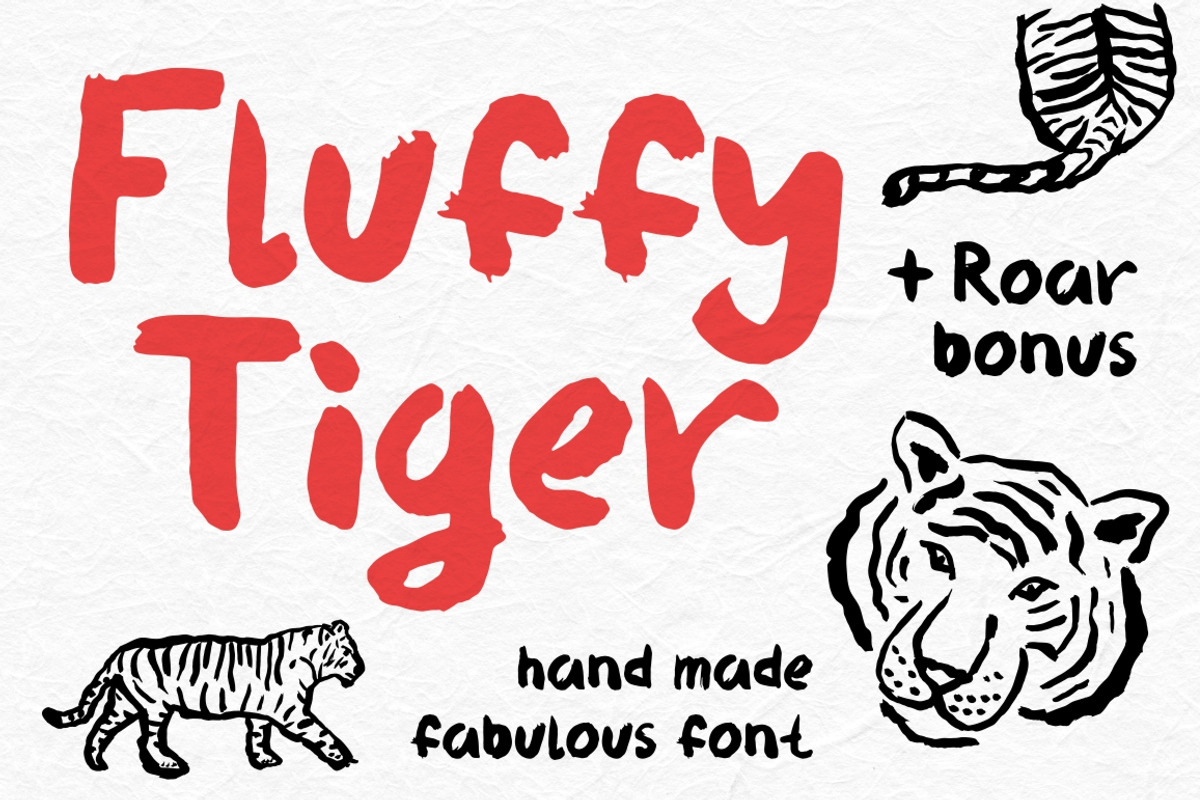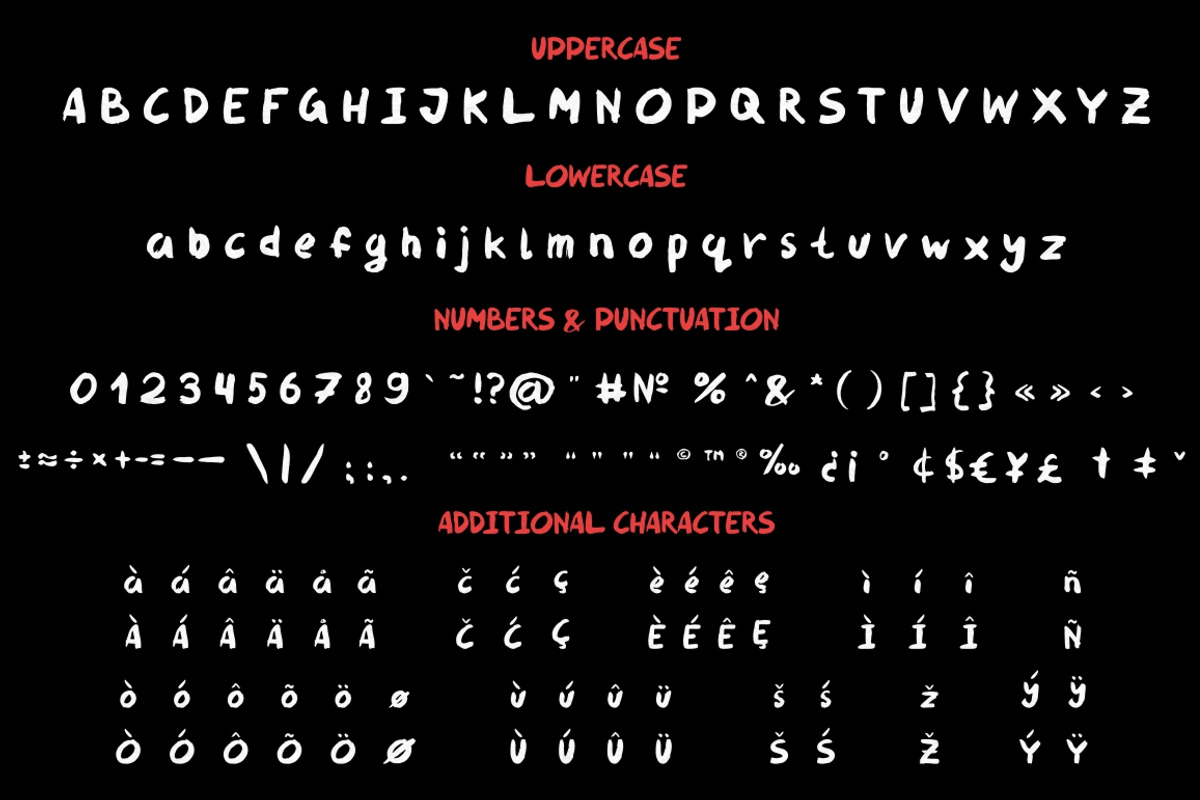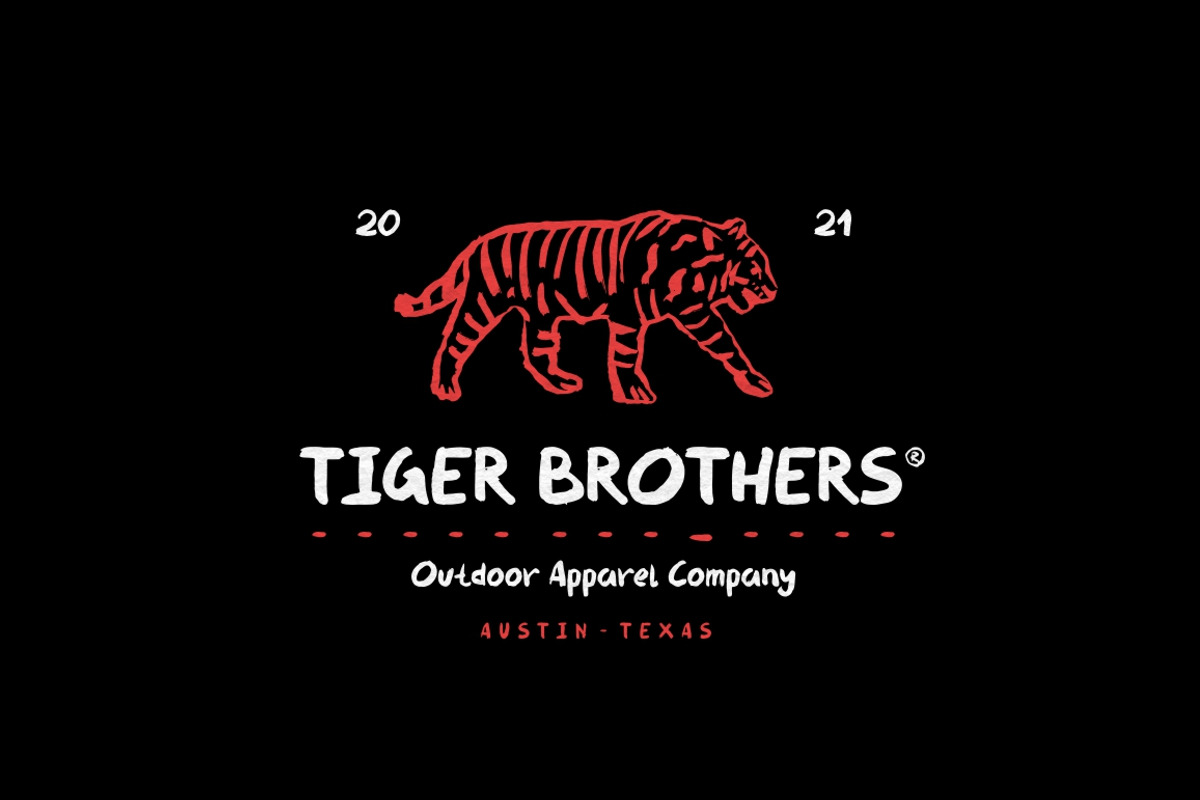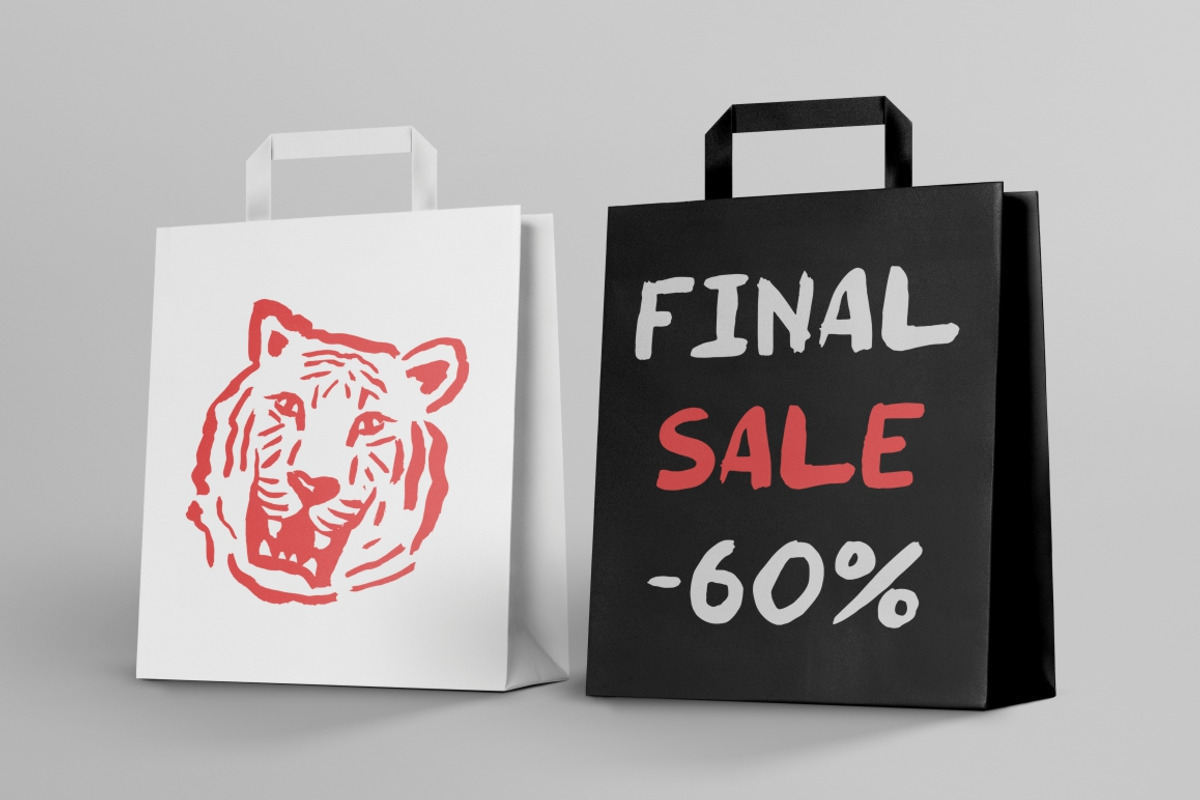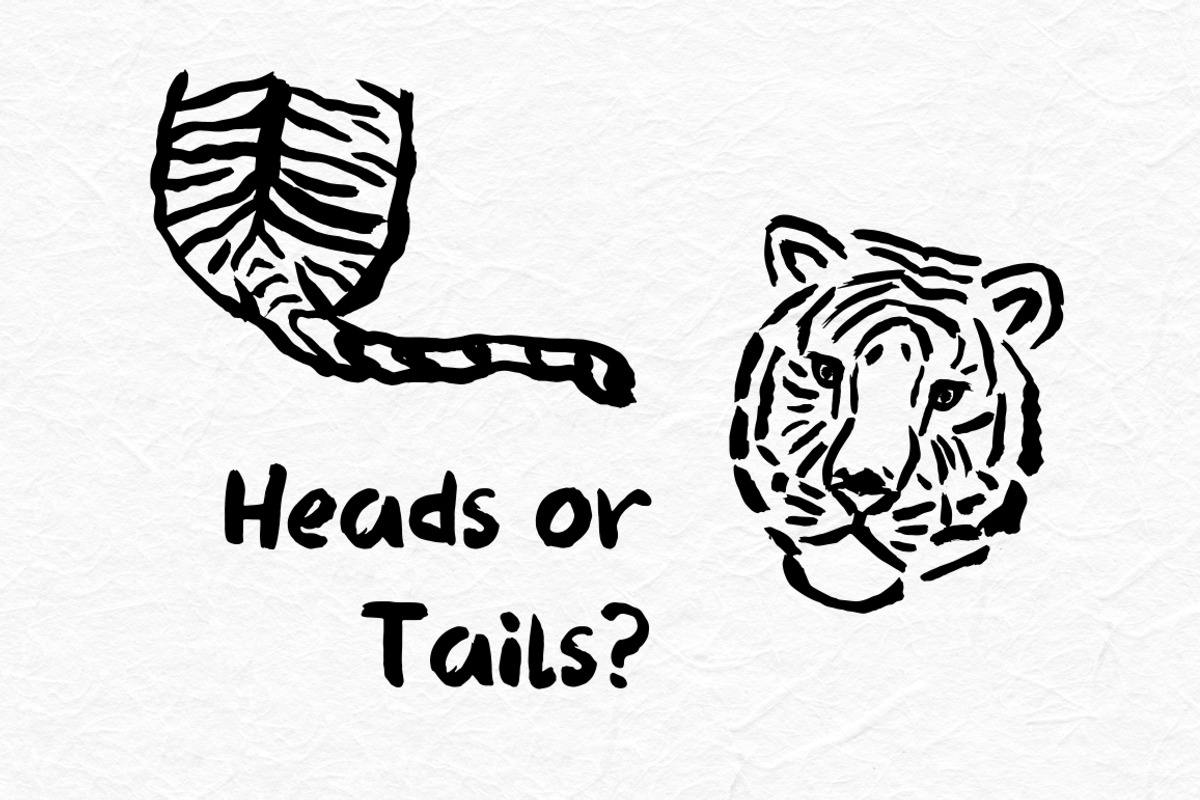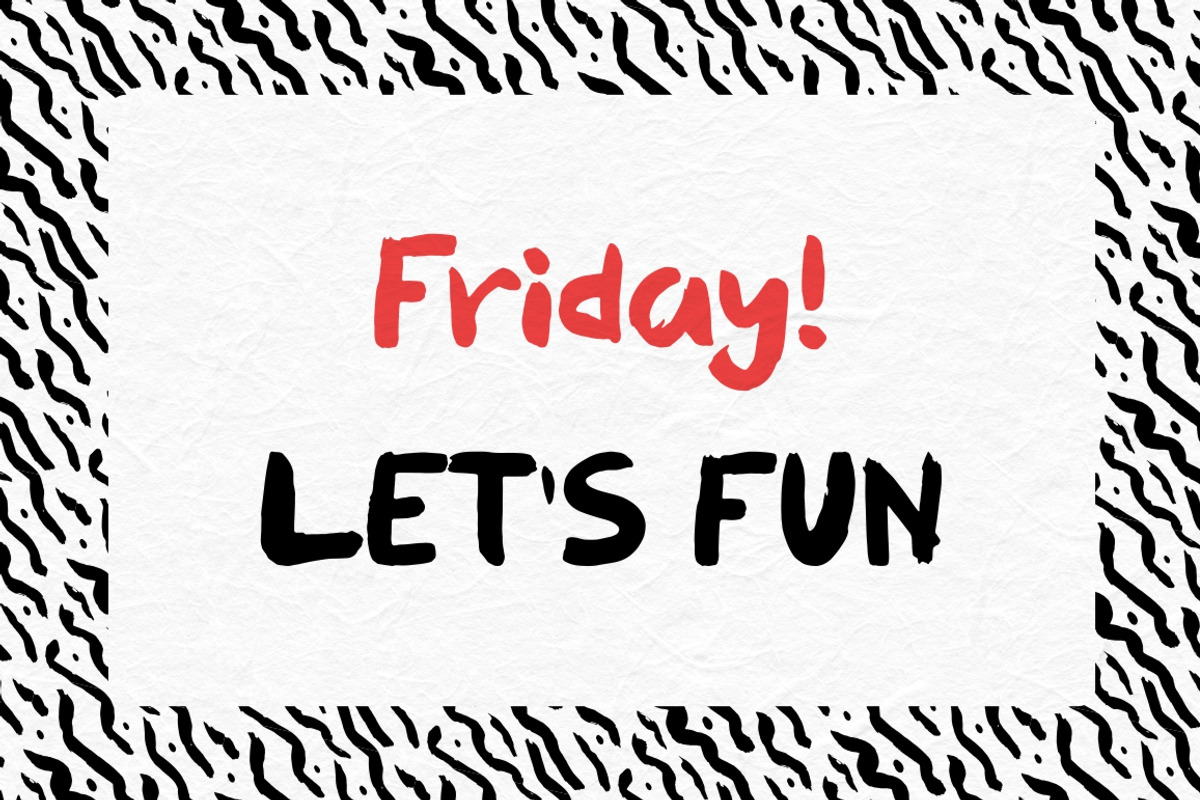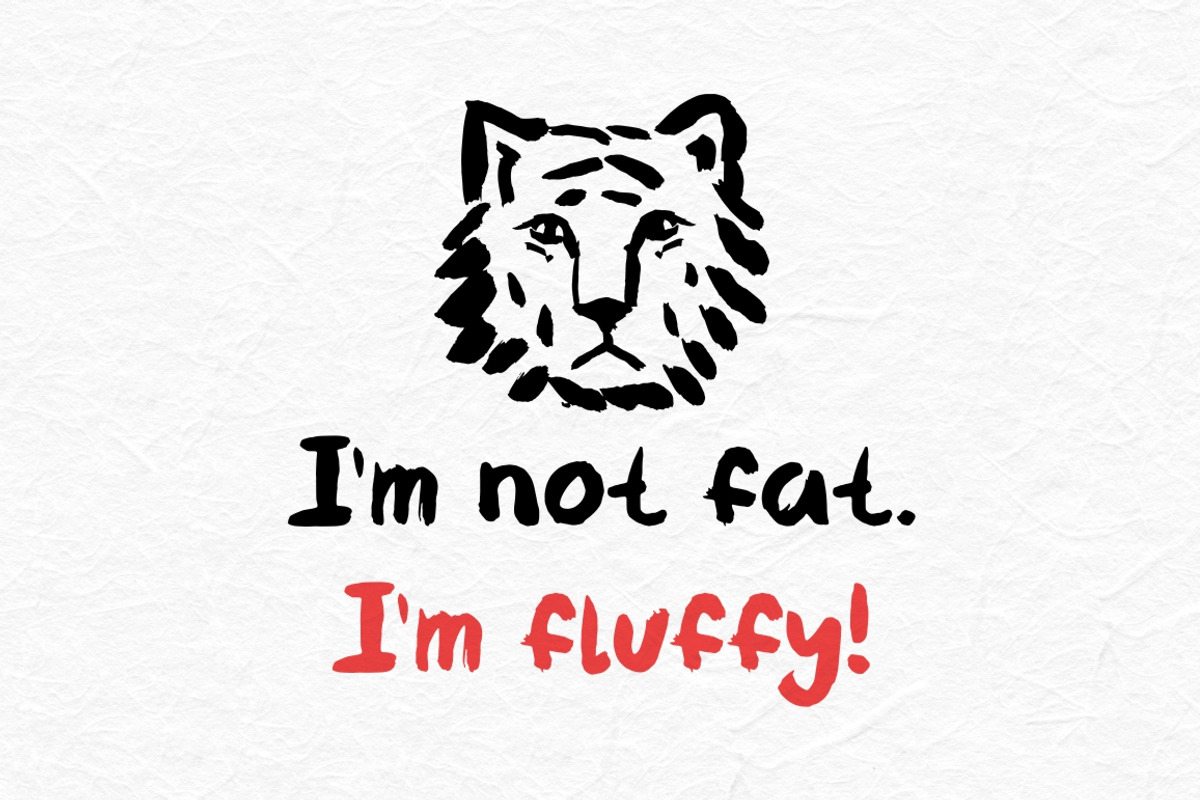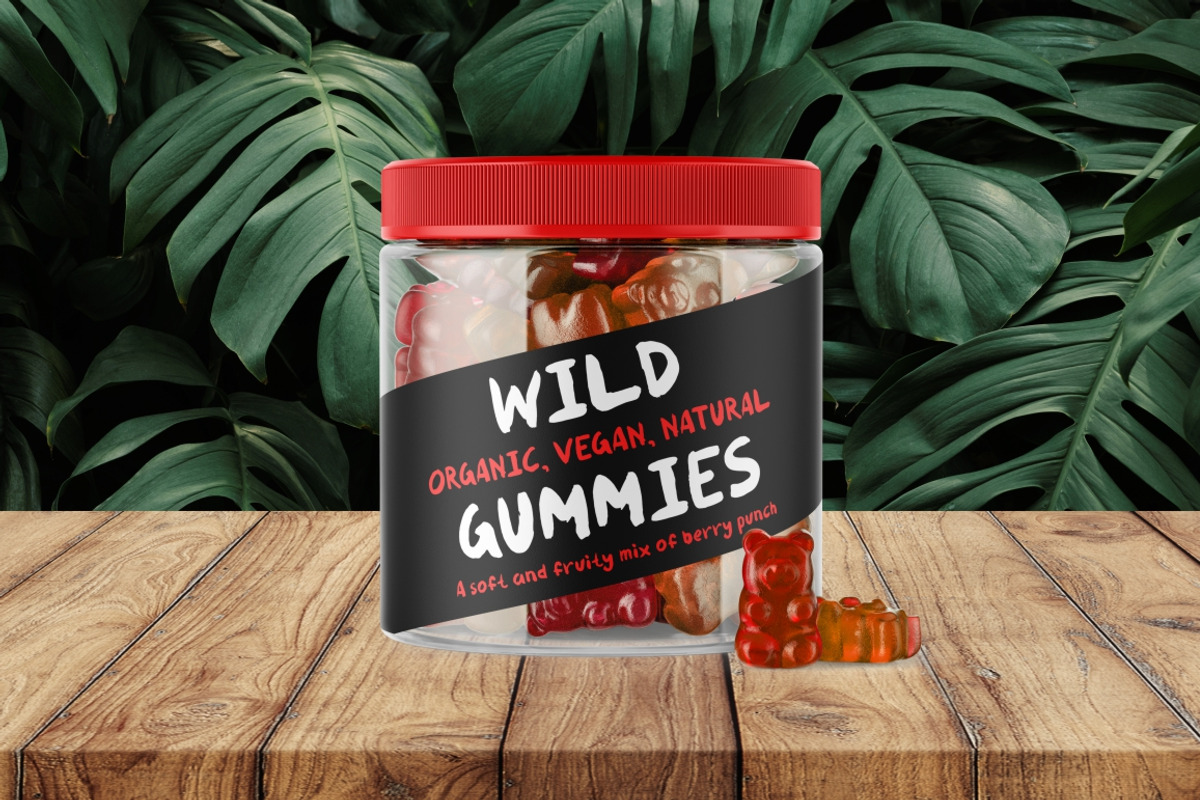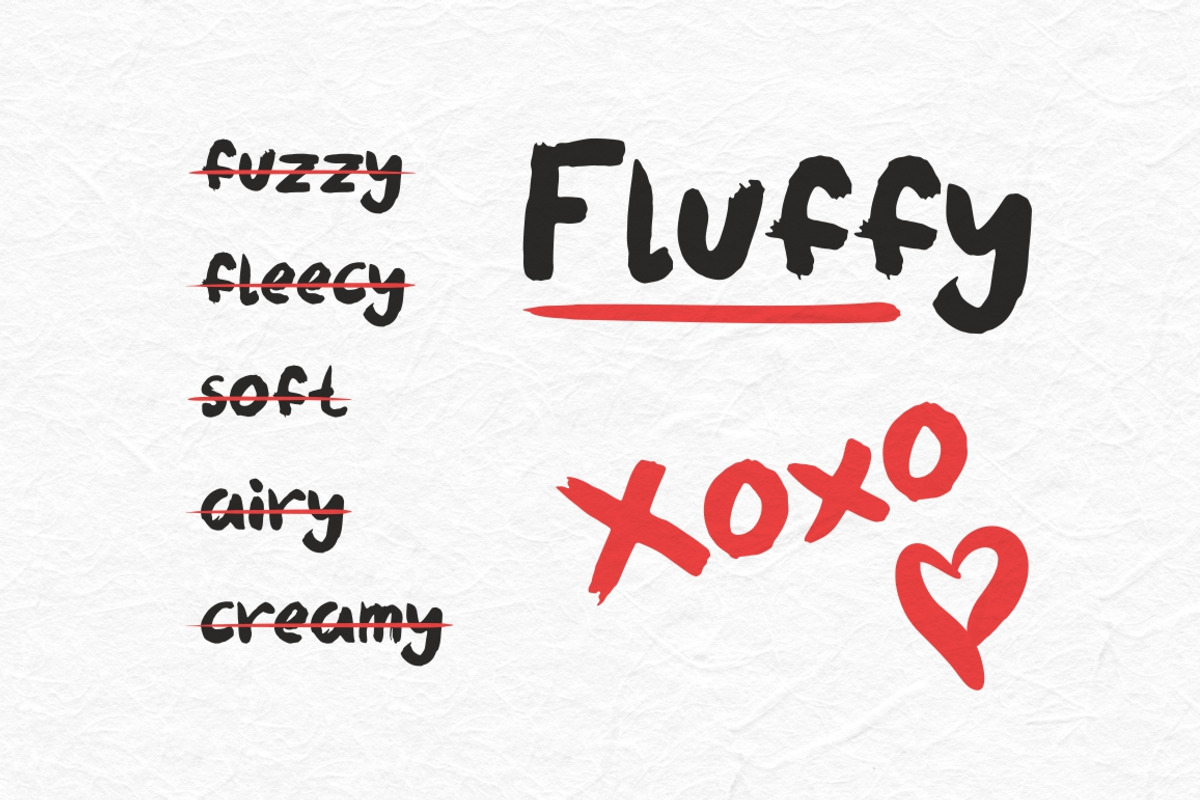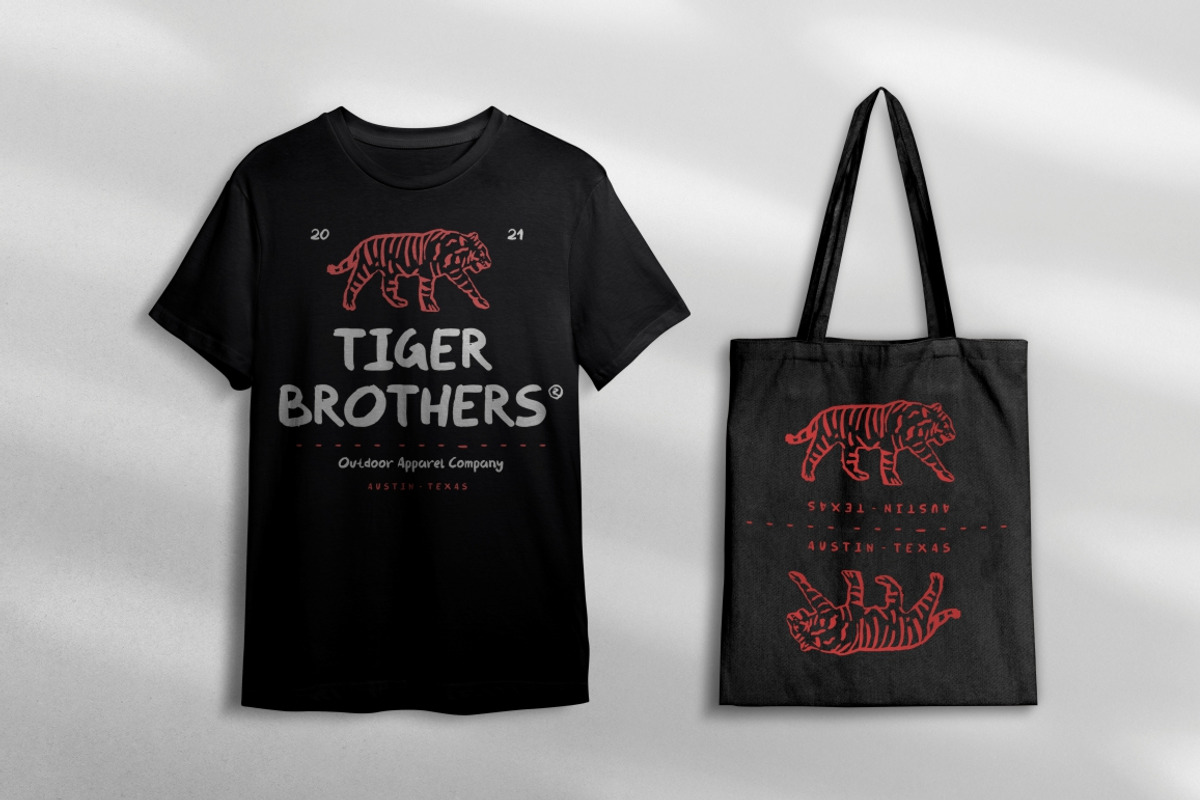
Fluffy Tiger brush font
Fluffy Tiger - Hand made brush font
Soft & passionately handwritten by brush font perfect for statement, flyers, greeting and invitation cards, social media quotes, logo design, apparel design, label and packaging design, heading, scrapbooking, calendars, book covers. Don't forget to use cute tiger vector illustrations for your designs.